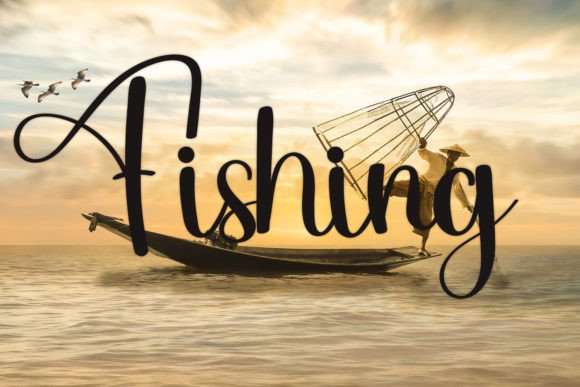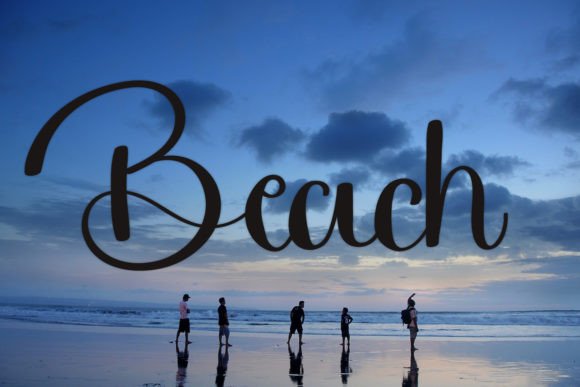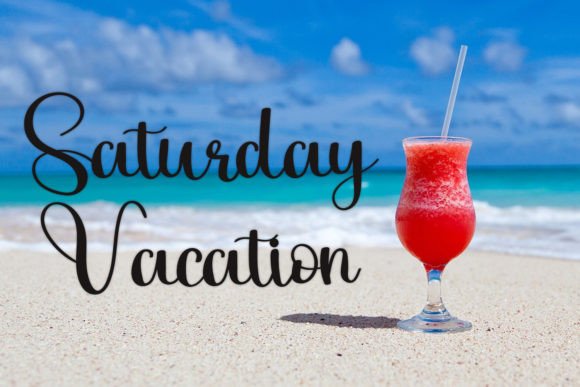
Introducing Barly Font: Elevate Your Designs with a Fresh and Beautiful Typeface
Are you tired of using the same old fonts in your designs? Look no further! Barly Font is here to revolutionize your creative projects with its fresh and beautiful style. This versatile typeface is perfect for a wide range of design purposes, from YouTube banners and cover logo mockups to wedding invitations, ID cards, flyers, crafts, and much more.
What Makes Barly Font So Special?
Barly Font is a unique and elegant typeface that can add a touch of sophistication to any design. Its clean lines, beautiful curves, and modern aesthetic make it perfect for designers and crafters looking to create stunning visual content. Whether you’re working on a personal project or a client’s design brief, Barly Font is sure to impress.
Key Features of Barly Font
- Fresh and Beautiful Design: Barly Font boasts a modern and elegant design that’s perfect for creating visually appealing content.
- Versatile: Use Barly Font for a wide range of design purposes, from digital projects like YouTube banners and social media graphics to print materials like wedding invitations and flyers.
- Easily Readable: The font’s clear and clean lines ensure that your text is easily readable, even at small sizes.
- Customizable: Experiment with different font sizes, colors, and styles to make Barly Font your own.
Barly Font is an excellent choice for designers and crafters looking to elevate their creative projects. Whether you’re a professional designer or a DIY enthusiast, this font is sure to inspire your next project. Use Barly Font to:
- Create stunning YouTube banners and social media graphics that grab attention.
- Design beautiful wedding invitations, save-the-date cards, and other stationery.
- Develop eye-catching ID cards, business cards, and brochures.
- Make unique and personalized crafts, such as handmade cards and gift tags.
- Enhance your flyers, posters, and other print materials with a modern and elegant touch.
Tips for Using Barly Font Effectively
To get the most out of Barly Font, here are some tips to keep in mind:
- Pair with Other Fonts: Experiment with pairing Barly Font with other fonts to create a unique and visually appealing combination.
- Play with Font Sizes: Use different font sizes to create hierarchy and emphasis in your design.
- Choose a Limited Color Palette: Select a limited color palette to ensure your design looks cohesive and professional.
- Experiment with Textures and Patterns: Add texture and pattern to your design to give it an extra layer of depth and interest.
Barly Font: The Perfect Addition to Your Design Toolbox
Don’t settle for boring and generic fonts in your designs. With Barly Font, you can add a touch of elegance and sophistication to your projects. Whether you’re working on a personal project or a client’s design brief, Barly Font is the perfect choice. So why not give it a try and see the difference it can make?